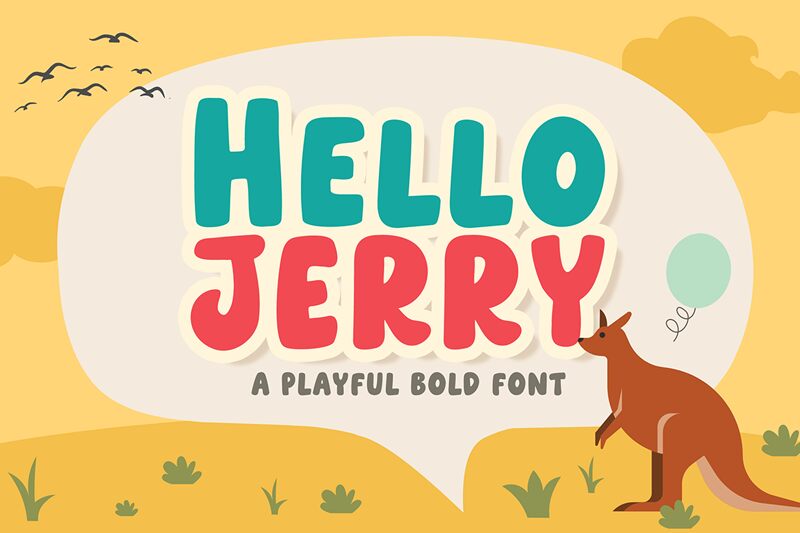
Hello Jerry font by Weape Studio is a free cartoon display font with bold and natural letters of eccentric silhouettes and light textures. Its characters are organic, rounded, irregular, and fun with minimal white inner details guaranteeing high energy. The typeface is casual with relaxed but animated features that make it both legible and understandable from the get-go.
Great for magazines, articles, visual identity creation, posters & flyers, book covers, packaging designs (pet products or kid’s food), apparel (T-shirts), branding projects (restaurants or small businesses), greeting cards as well as website headers or footers.